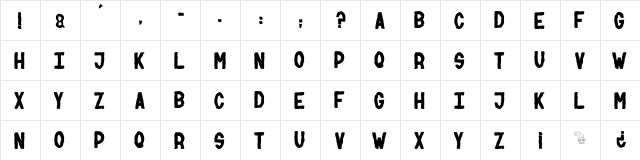
NUMBER two Regular Font Preview
NUMBER two Regular
NUMBER two Regular Font Details
| Foundry | dcoxy Medina Gregory |
| Designer | dcoxy Medina Gregory |
Design Context for NUMBER two Typeface
NUMBER two takes a measured approach to typography — its balanced proportions and neutral character make it a reliable workhorse for both digital and print work.